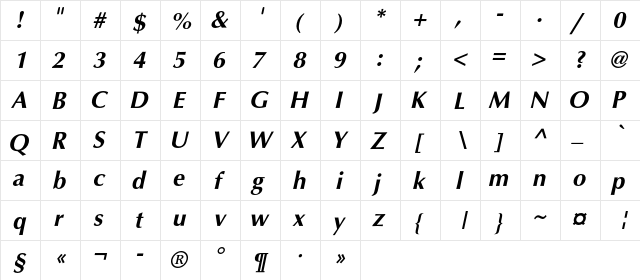
AGOpusHRC Bold Italic
Design Context for AGOpusHRC Typeface
AGOpusHRC is a composed and adaptable typeface that performs quietly and consistently across a wide range of design contexts. The dynamic lean of this cut emphasises speed and emphasis in any layout. Its bold stroke weight gives it real presence on the page.
Pro Tip: Try AGOpusHRC for annotation and caption copy alongside an upright companion — the contrast in angle creates a dynamic but ordered typographic system.